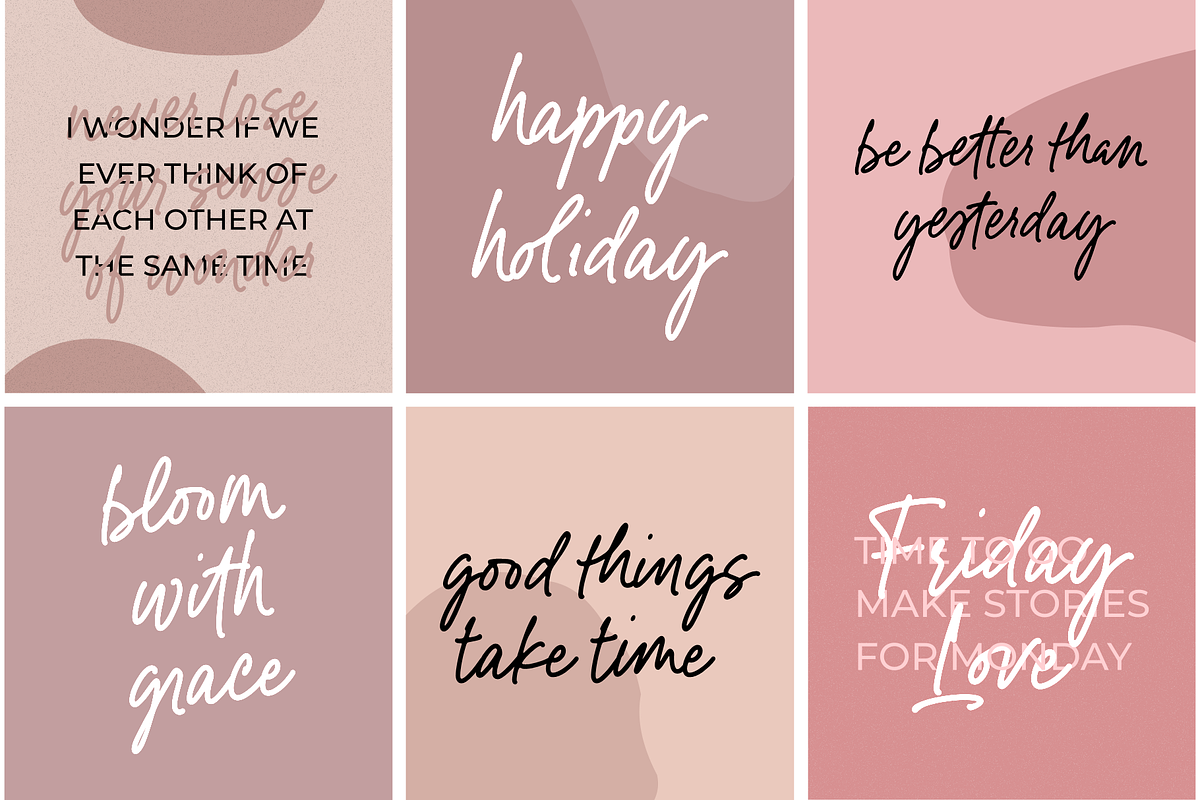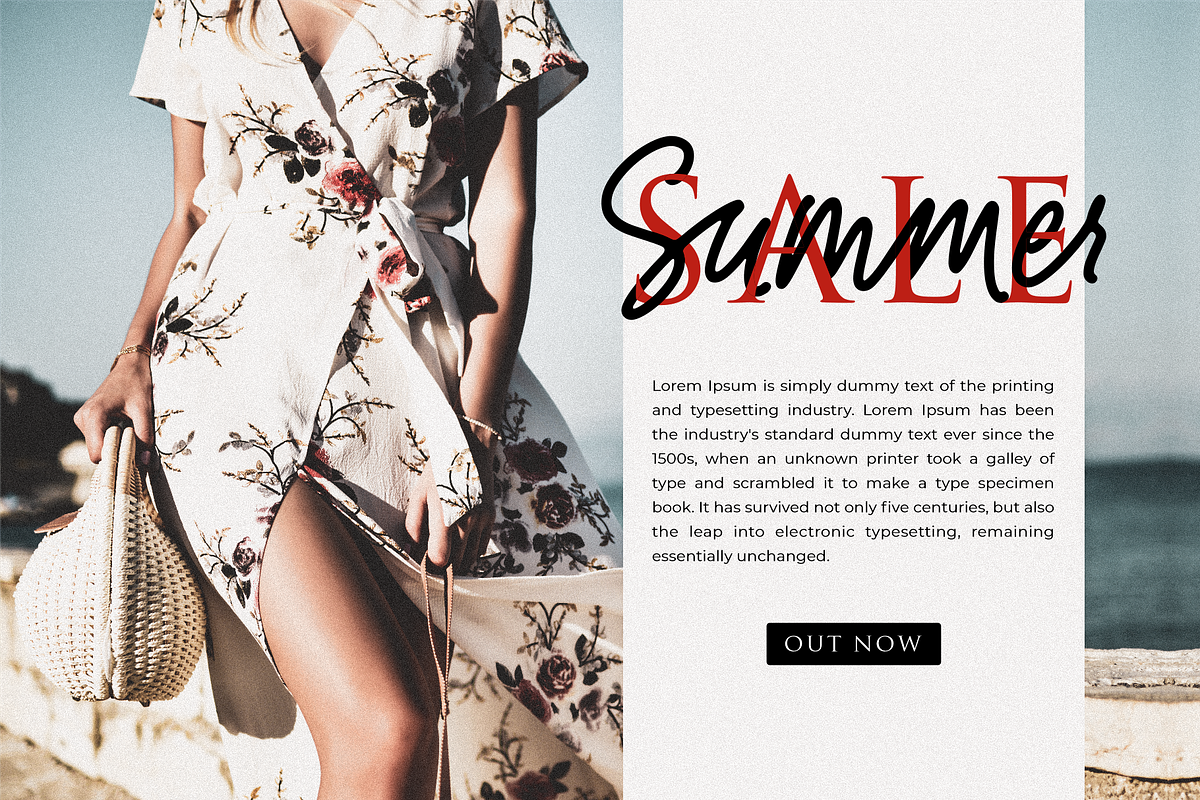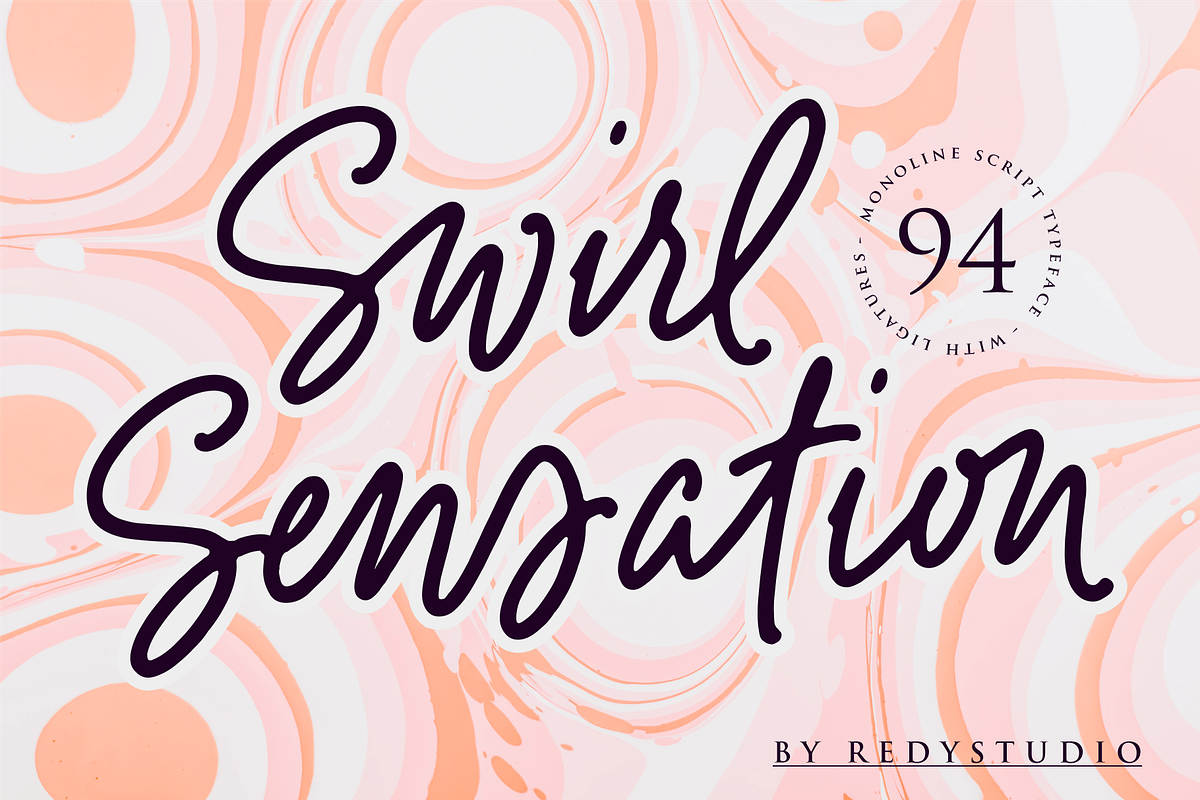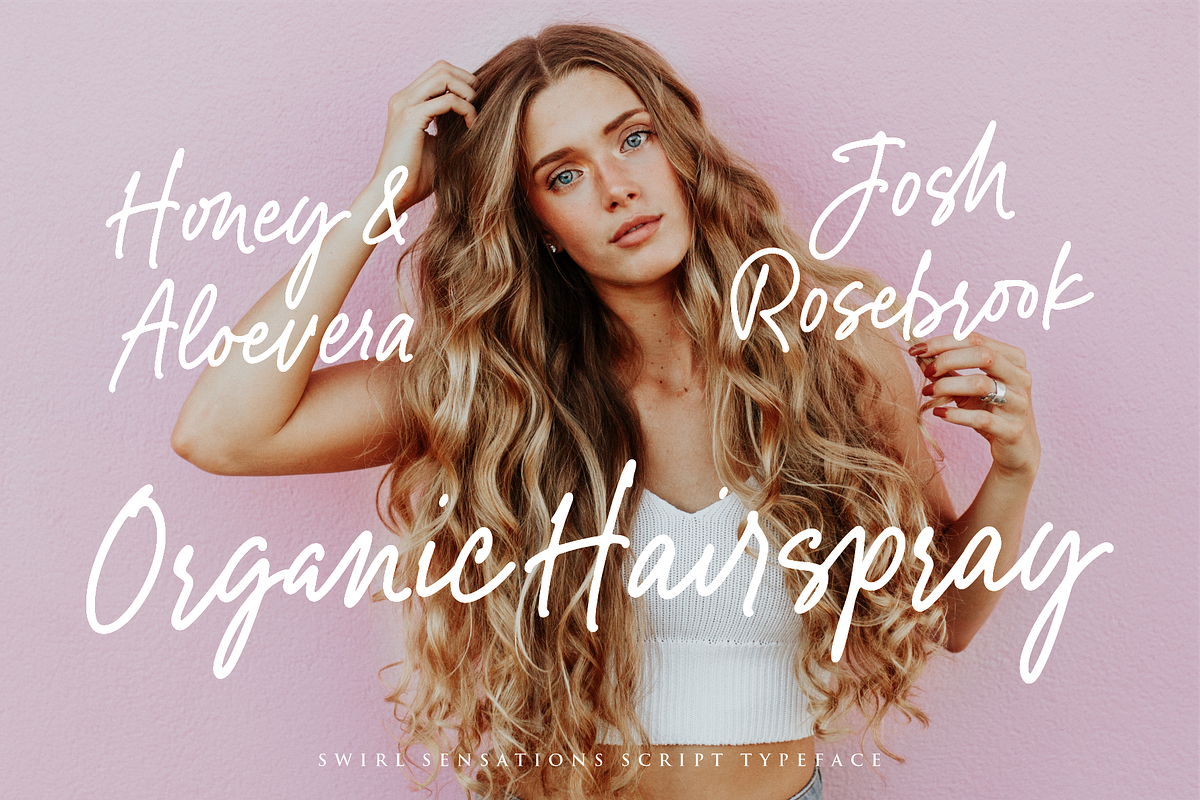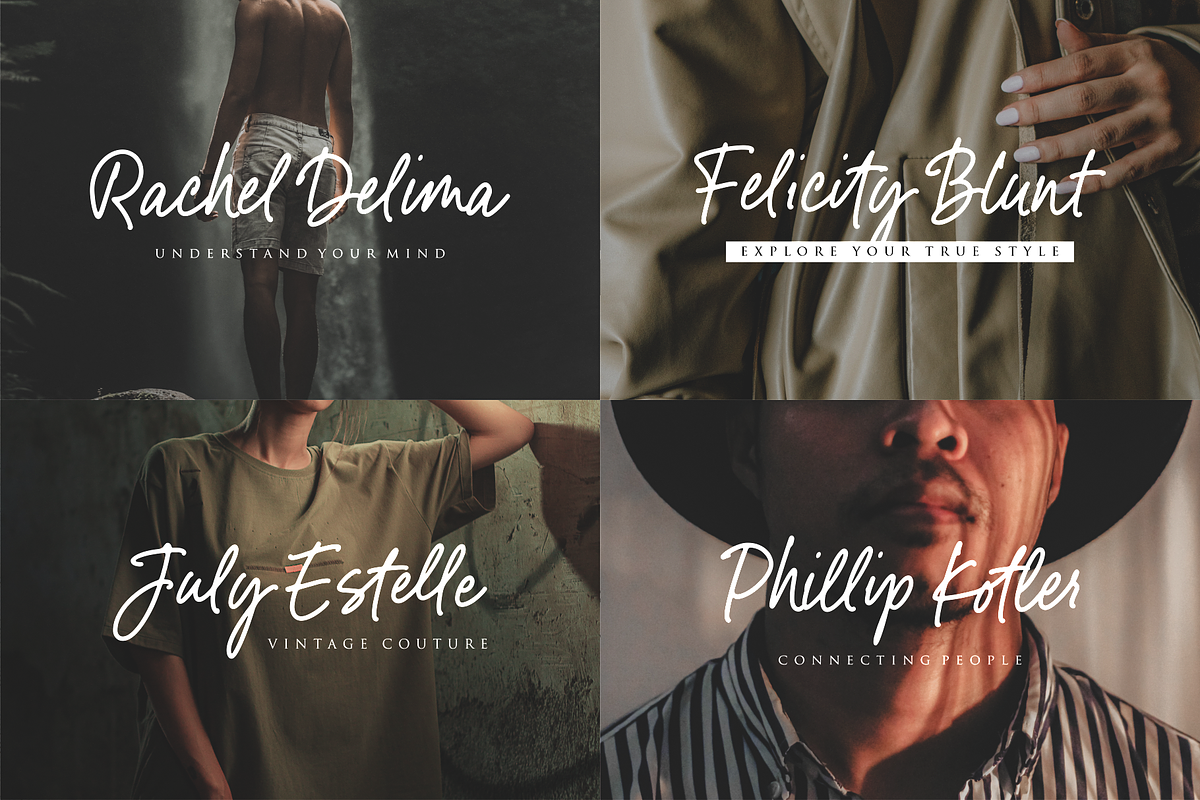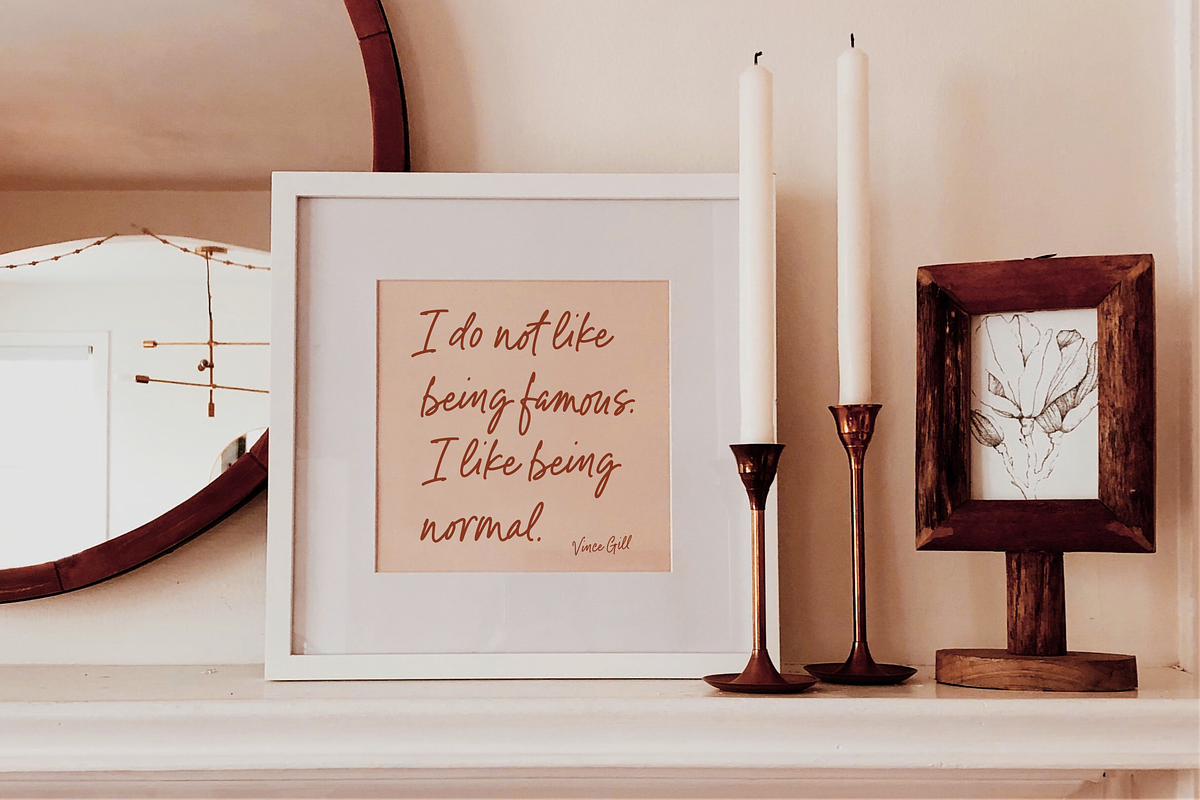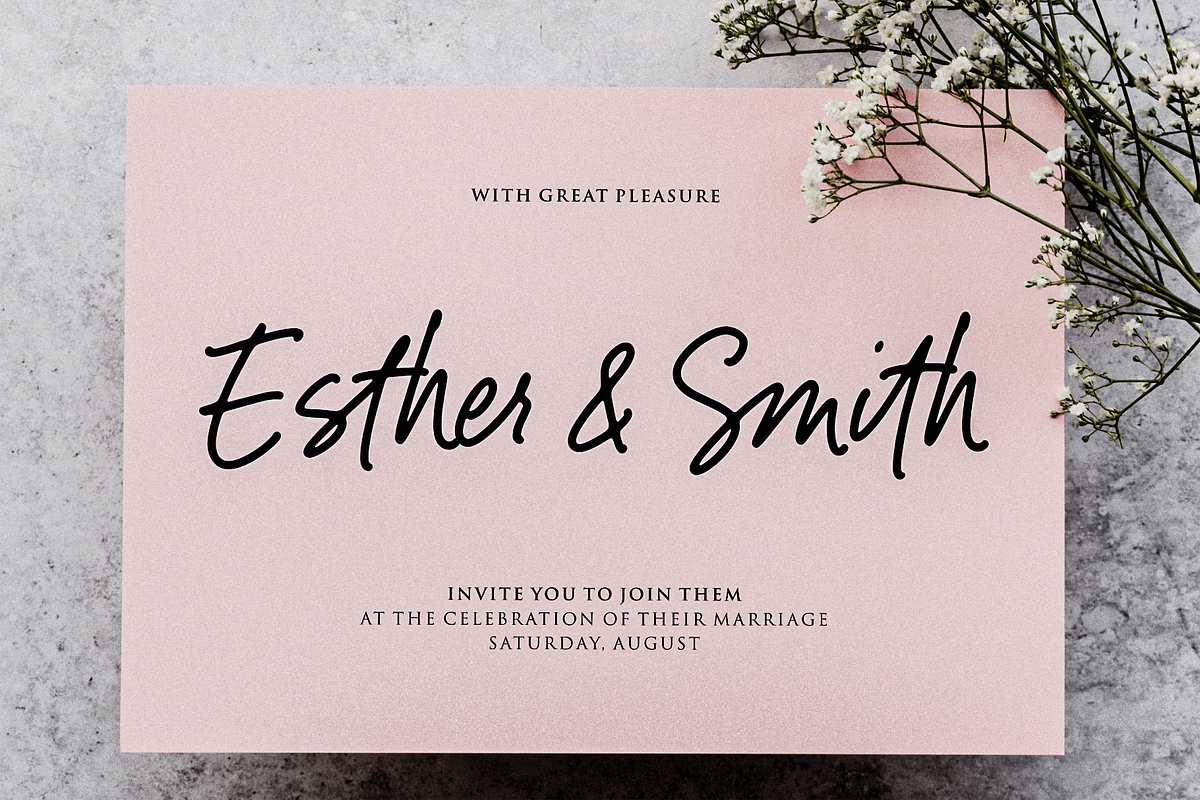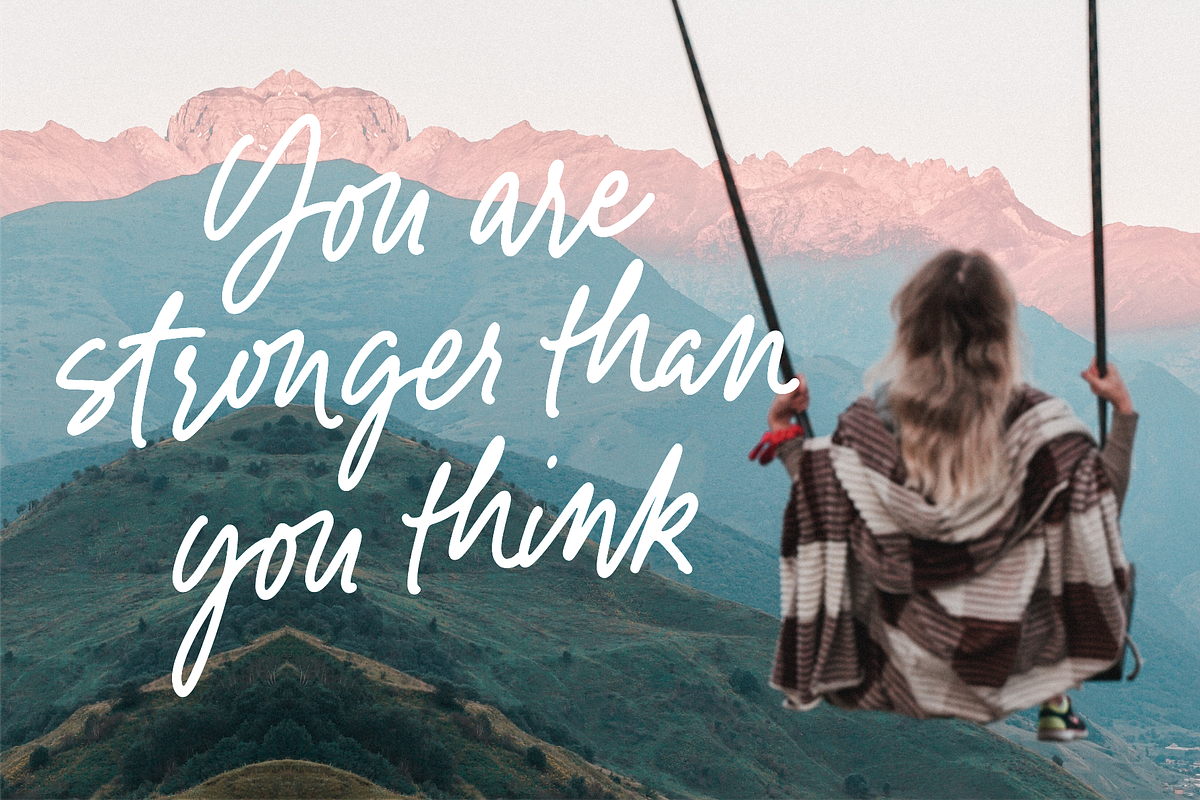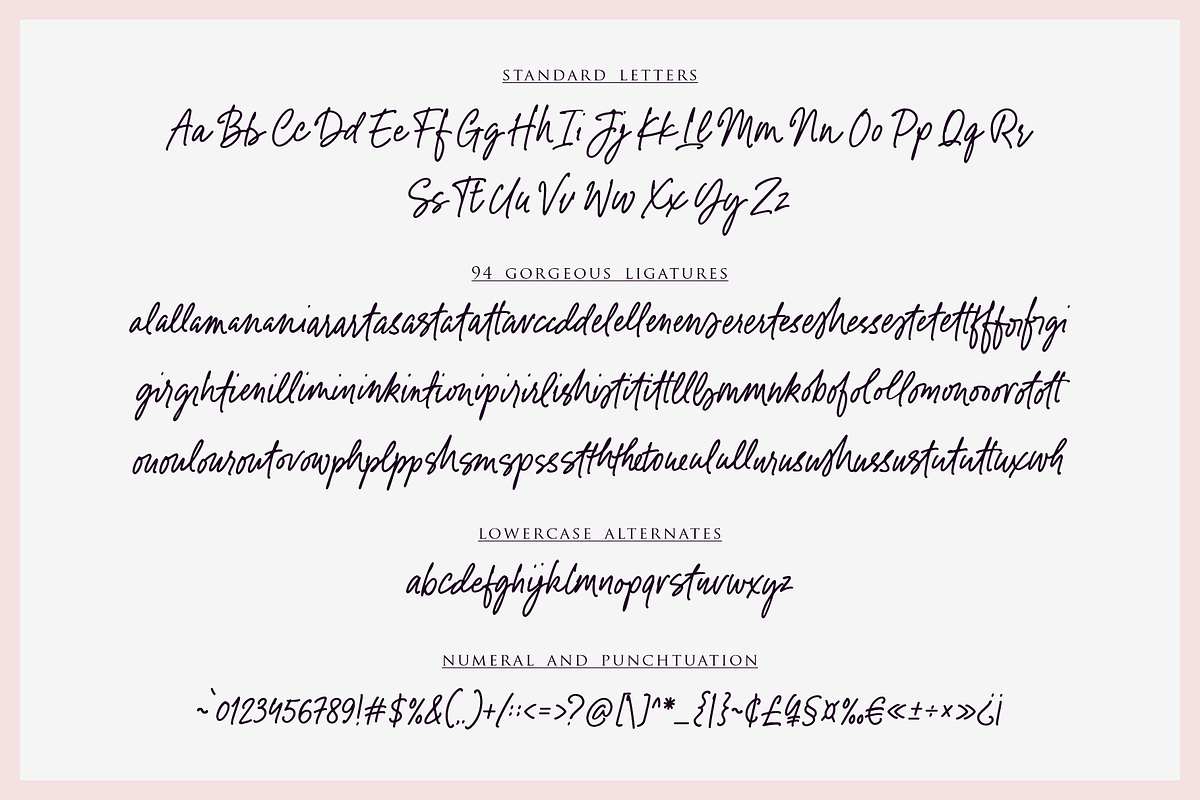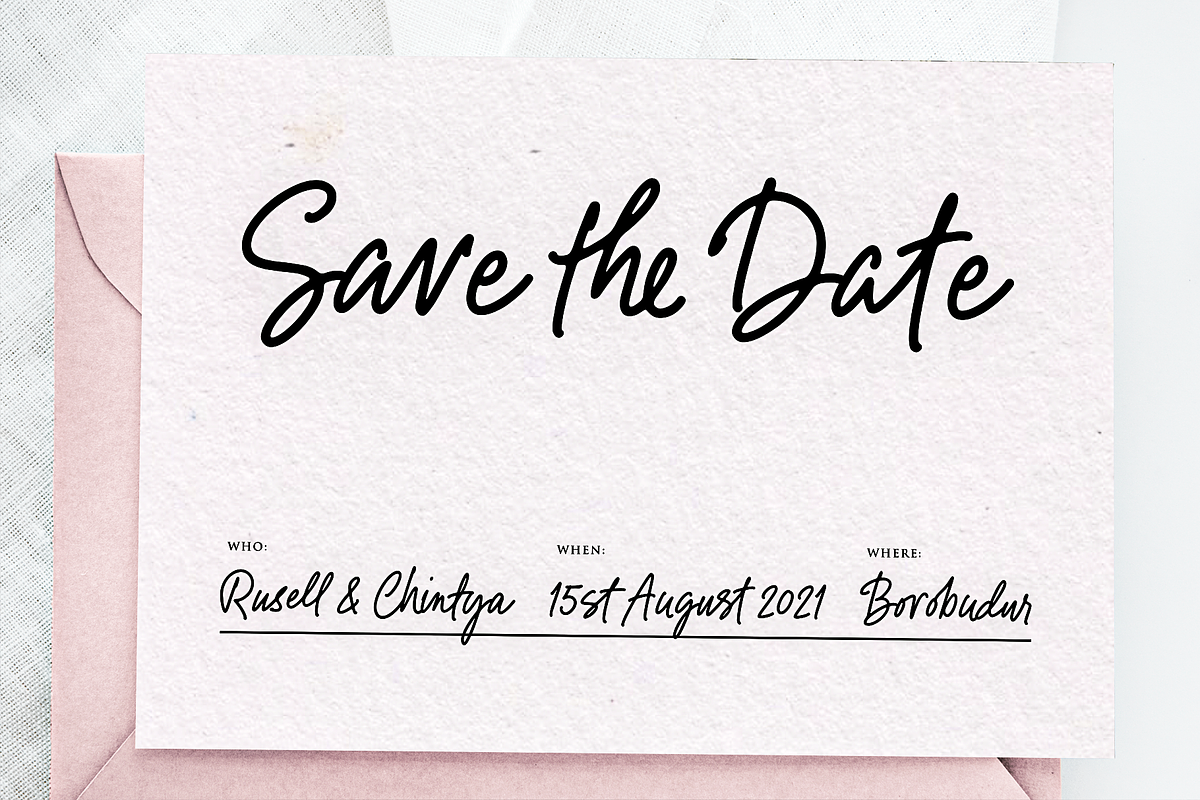
Swirl Sensations
From Lovely Label comes Swirl Sensations inspired by the feeling of the pen stroke. Swirl Sensations fonts will be a treat for your eyes. Combined with the natural flow of handwritten typefaces, this series is a lot of fun and can help bring your design to life. This font is perfect for creating stunning designs in various styles, including vintage, cute, colorful, hand-made, or customized logos. Made manually by the author and it is the best match to put your texts perfectly on the design. In addition, this font is great for numerous types of projects: logos, branding projects, t-shirts, advertising, labels, and other items. Also ideal for invitations for its unique style of writing.
Swirl Sensations features:
- A full set of upper & lowercase characters
- 94 Gorgeous ligatures: al, all, am, an, ani, ar, art, as, ast, at, att, av, cc, dd, el, ell, en, ens, er, ert, es, esh, ess, est, et, ett, ff, for, fr, gi, gir, gr, ht, ien, il, lim, in, ink, int, ion, ip, ir, irl, ish, ist, it, itt, ll, ls, mm, nk, ob, of, ol, oll, om, on, oo, or, ot, ott, ou, oul, our, out, ov, ow, ph, pl, pp, sh, sm, sp, ss, st, th, the, to, ue, ul, ull, ur, us, ush, uss, ust, ut, utt, ux, wh.
- Alternates in lowercase
- Multilingual symbols